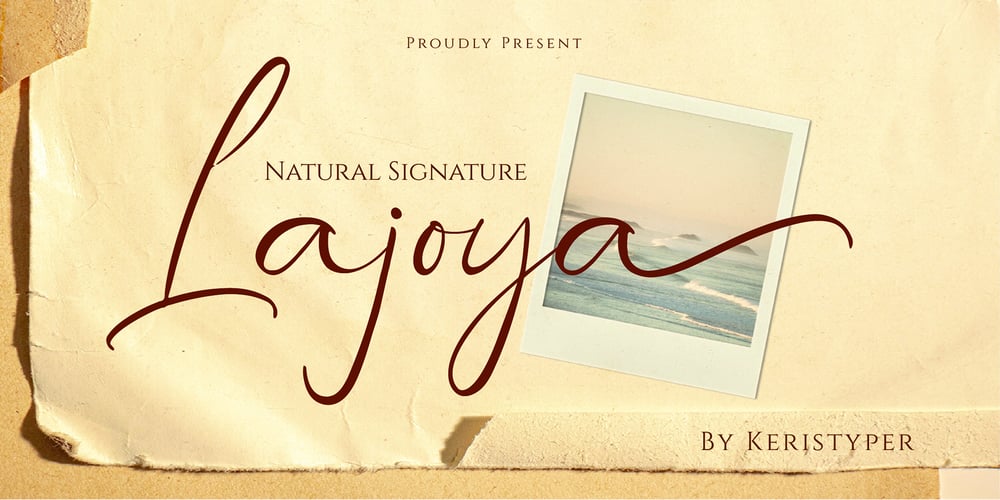
Lajoya
Lajoya font
Lajoya Font Family was designed by Tezar Tantular and published by Keristyper Studio. Lajoya contains 1 styles and family package options. Lajoya is a unique and natural handwritten script. The appearance of the strokes is in the form of light, free-flowing brush strokes. This font is good for logo design, Social media, Movie Titles, Books Titles, short text even long text letters, and good for your secondary text font with sans or serif.Featured: Standard Uppercase & Lowercase Numeral & Punctuation Multilingual : ä ö ü Ä Ö Ü ß ¿ ¡ Alternate & Ligature PUA encoded We recommend programs that support the OpenType feature and the Glyphs panel such as Adobe applications or Corel Draw. so you can use all the variations of the glyphs. Hope you enjoy our fonts!